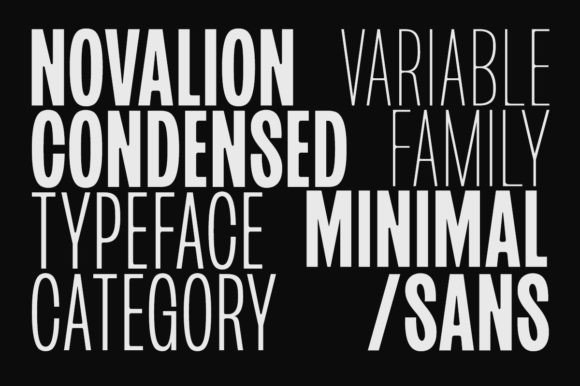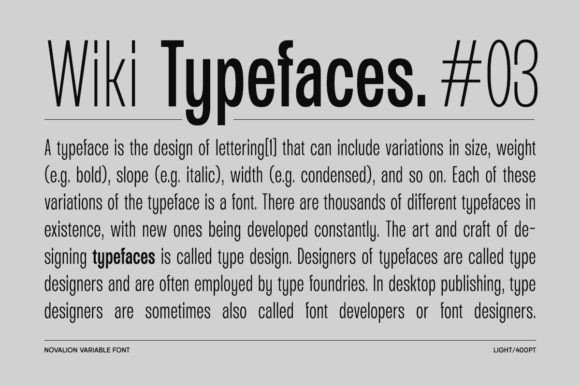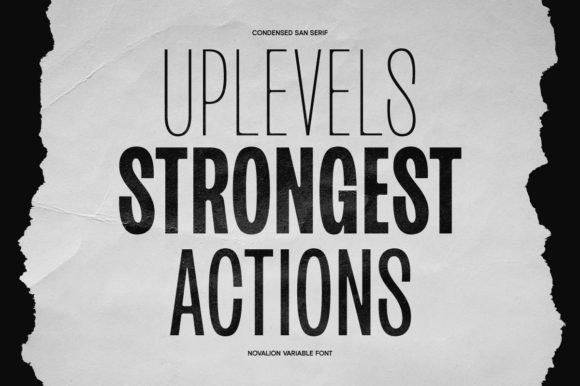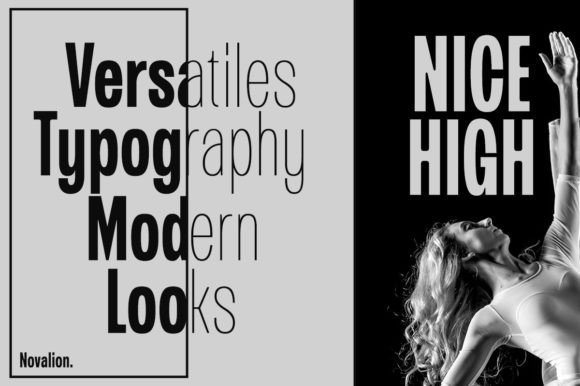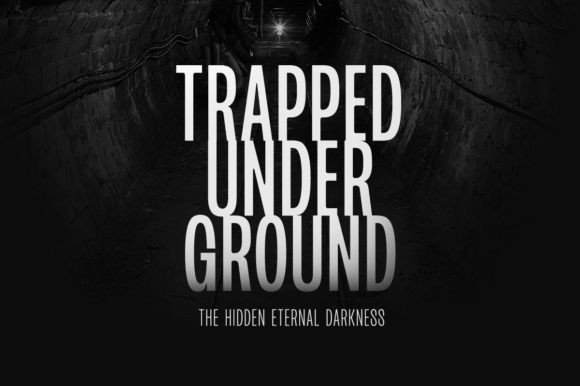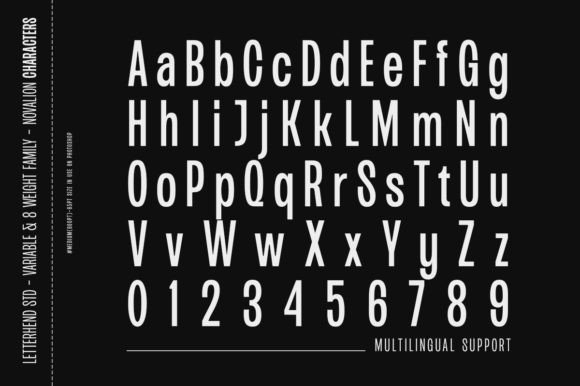
Introduction to Novalion Font
As a designer, you’ve been there – staring at a blank canvas, trying to bring your creative vision to life. The perfect font can make all the difference. Imagine being able to convey your message with clarity and elegance, while also adding a touch of sophistication to your project. This is where the Novalion Font comes in – a game-changing design resource that’s sure to elevate your creative project.
With its high-quality, condensed variable sans serif design, the Novalion Font offers unparalleled versatility. Whether you’re working on invitations, labels, logos, or advertising materials, this font has got you covered. And the best part? It’s available for free download, making it an absolute must-have for any designer.
But what truly sets the Novalion Font apart is its ability to be tailored to suit any project. With a wide range of weights to choose from, you can create a transparent background that perfectly complements your design. This level of customization is invaluable for designers, allowing them to craft a unique visual identity that truly reflects their brand or message.
Key Features of Novalion Font
- High-quality design suitable for creative projects, with a unique and modern aesthetic.
- Perfect for use in graphic design, digital art, and print materials, including posters, flyers, and business cards.
- Unique characteristics include a futuristic feel, clean lines, and a bold yet elegant appearance.
Honest Review: Novalion Font
I recently had the chance to use the Novalion Font in one of my creative projects, and I must say it’s a high quality design resource that truly delivers. The free download option made it an easy addition to my project, and the transparent background allowed me to seamlessly integrate it with my other design elements.
What works well: ✨ The Novalion Font has a unique and stylish design that catches the eye. The font is highly legible and works well in a variety of contexts, from headings to body text. I particularly appreciated the versatility of this font, as it can be used in both formal and informal settings.
Overall, I’m impressed with the Novalion Font and would definitely consider using it again in the future. If you’re looking for a high-quality, free design resource for your next creative project, the Novalion Font is definitely worth checking out.
- High quality design resource
- Unique and stylish design
- Highly legible
How to Use Novalion Font
Tips for Getting the Most Out of Novalion Font
Use the Novalion Font for designs that require a modern and sleek look. This font pairs well with transparent backgrounds, making it perfect for creating eye-catching graphics and designs.
Common Use Cases for Novalion Font
Novalion Font is commonly used for:
- Business card designs
- Brochure designs
- Website headers
Can I use the Novalion Font with a transparent background?
Yes, the Novalion Font is designed to work well with transparent backgrounds. Since it has a transparent background, you can easily place it over any image or design element without any issues. This makes it perfect for creating stunning visual effects and designs.